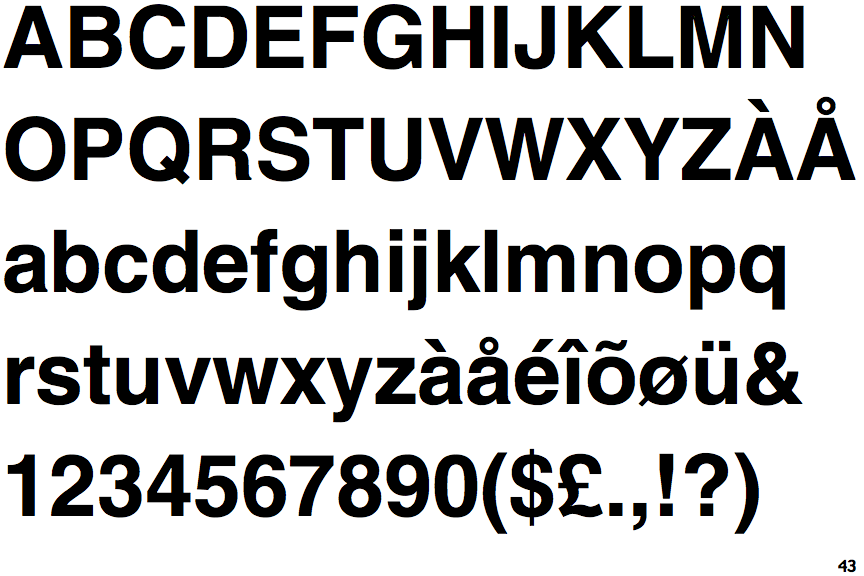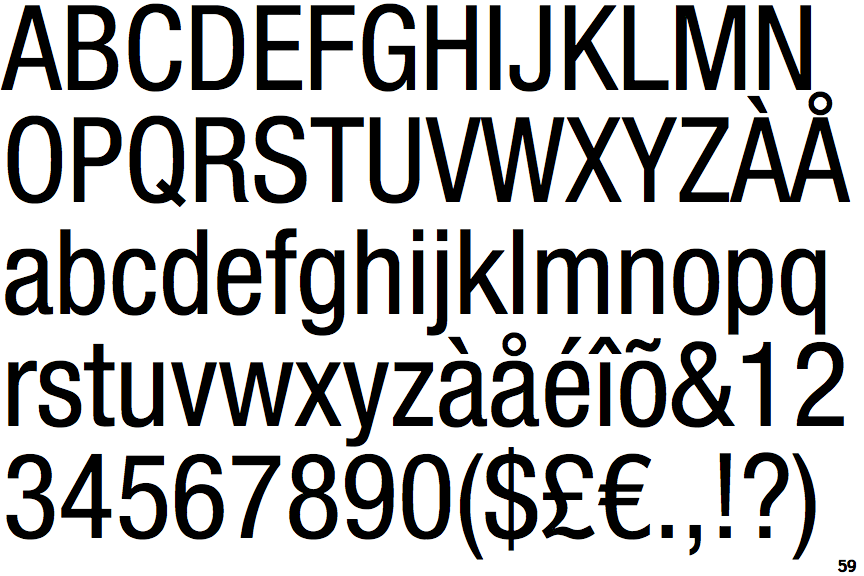
Helvetica Like Fonts. What font is closest to helvetica font? Helvetica ™, is already available on many computers and comes free with popular operating systems such as windows and mac.
So, feel free to use this. In general, arimo is a decent replacement for helvetica, although it has a few more letters than the latter. Enter custom sample text to change the font previews below
Designed by adrian frutiger, the univers is the smaller and more spaced out version of the helvetica font. It was the system font of ios from inception up until 2015, when they replaced it with their own custom font, san francisco. This isn't an alternate of helvetica because helvetica is based on akzidenz grotesk !
We have many similar helvetica alternatives that you can download for free. The arial font is considered perhaps the twin of the helvetica font. Arimo was designed by steve mattheson to replace helvetica, but works perfectly across all platforms.
Helvetica Is Not Included As A Default Font On Windows Computers.
Helvetica ™, is already available on many computers and comes free with popular operating systems such as windows and mac. The typeface was created by christian robertson from australia which he describes as “a workhorse of a typeface.” it has a. It is one of those fonts similar to helvetica that can be used in many different ways.
There Is More Variety Within The Strokes Of The Univers Font Itself.
Many typefaces look like helvetica that may already exist in your computer's font collection. Enter custom sample text to change the font previews below The big difference is certainly in the end of the font which is angled and in the slightly greater spacing between characters.
There Are Some Good Similar Fonts Available, Like Helvetica Now Font:
In general, arimo is a decent replacement for helvetica, although it has a few more letters than the latter. More like the 50's swiss grotesque font before the success of photocomposition process. Roboto is a replacement font for helvetica and arial, which are the most common fonts on mobile devices.